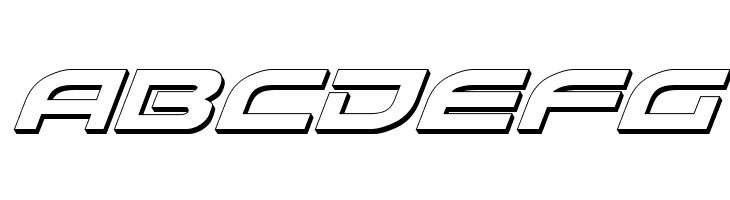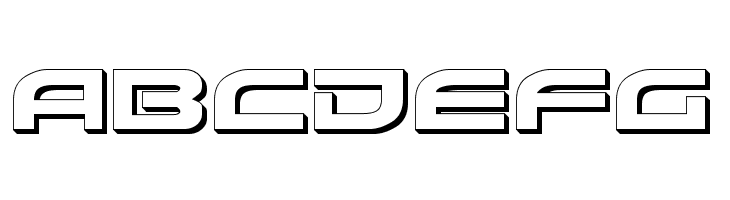
Seathera Font
- Font: Seathera
( Fonts by Iconian Fonts - Daniel Zadorozny )
A bold, italicized font with a futuristic shadow effect, perfect for dynamic designs.